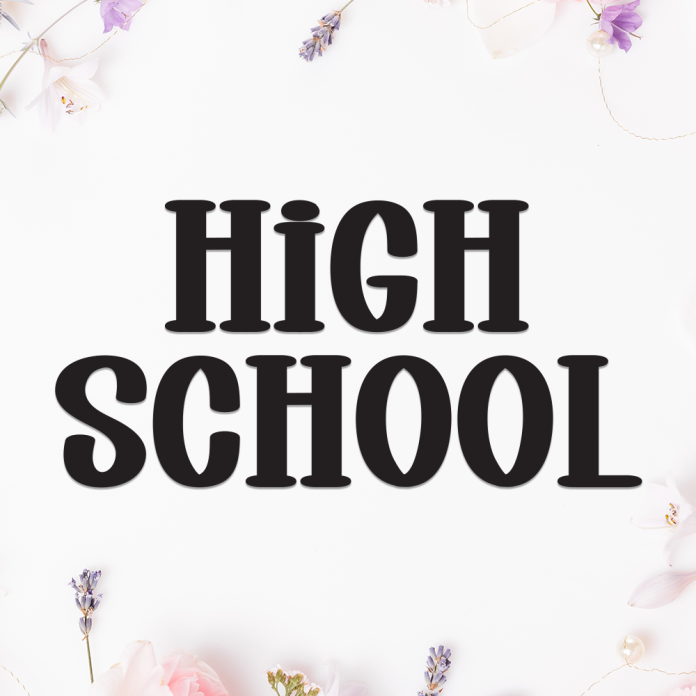
High School is a strong and nostalgic display font inspired by varsity letters and school spirit. With its bold lines and structured design, this font brings a timeless academic vibe that’s perfect for sports, college-themed graphics, and retro-inspired branding.
Ideal for school merchandise, team logos, event posters, apparel, and yearbook covers, High School adds a bold, energetic feel to your designs.
Classic varsity-style display font
Strong, bold letterforms with a sporty edge
Great for school themes, sports branding, and vintage-inspired projects
Show your school pride with High School, the display font that brings bold tradition to modern design.